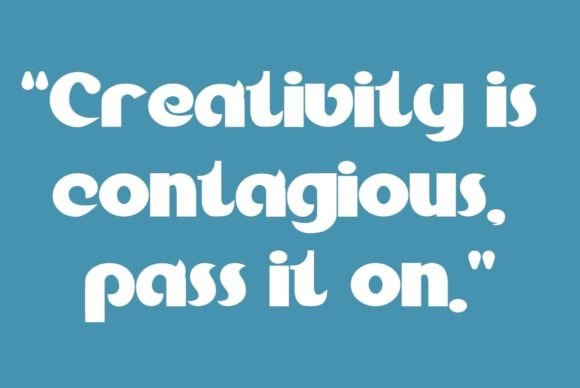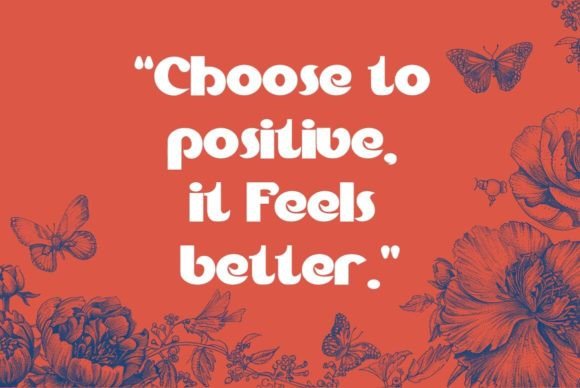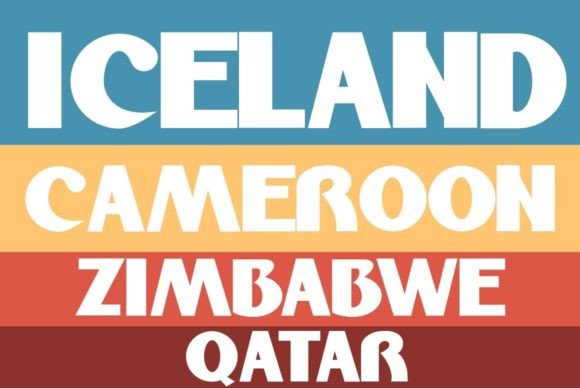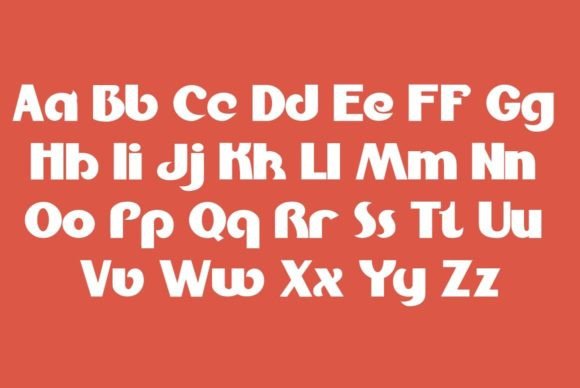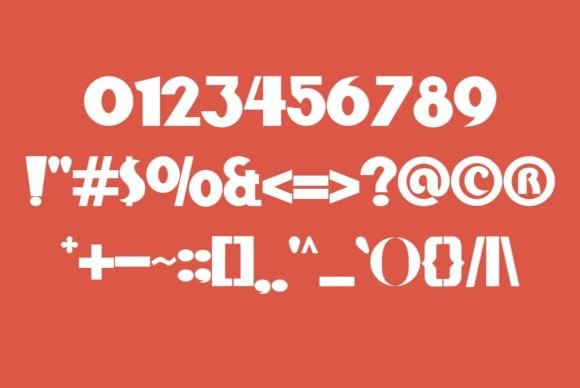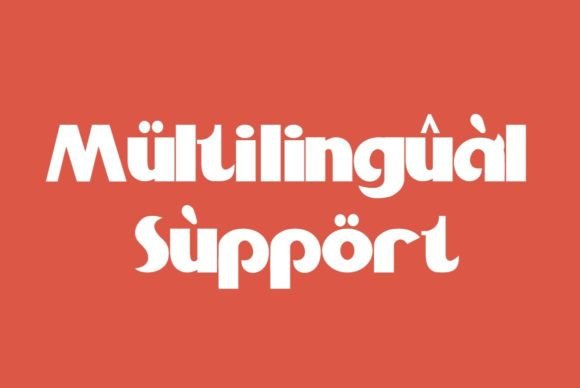
Introduction to Morinaga Font
As designers, we’ve all been there – staring at a blank canvas, trying to bring a creative project to life. The moment of inspiration hits, and suddenly, the perfect font appears in our minds. For us, that font is often the Morinaga Font, a sans-serif masterpiece that elevates any design to the next level. With its unique and elegant design, Morinaga Font is the perfect choice for branding and logo creation.
Whether you’re working on a high-quality logo for a client or crafting a personal design project, Morinaga Font is a valuable resource that can make all the difference. Its versatility and sophistication make it an ideal choice for designers looking to create distinctive and memorable designs. Plus, with its transparent background option, you can easily customize it to fit your project’s needs.
Key Features of Morinaga Font
- High-quality, modern sans-serif font design, perfect for a wide range of creative projects.
- Features a transparent background, allowing for seamless integration into various design elements and backgrounds.
- Includes a wide range of characters, including Latin, Cyrillic, and Greek alphabets, making it suitable for multilingual designs.
- Unique characteristics include a clean and minimalist aesthetic, making it an excellent choice for modern branding and marketing materials.
Honest Review: Morinaga Font
As a designer, I’m always on the lookout for high-quality design resources to elevate my creative projects. The Morinaga Font caught my attention, and I’m excited to share my honest review.
- ✨ High-quality typography: Morinaga Font boasts beautiful, hand-drawn characters that add a touch of elegance to any design.
- ✨ Versatility: This font is perfect for a wide range of creative projects, from logos to brochures, and even digital displays.
- ⚠️ Limited language support: While Morinaga Font covers a good range of languages, it may not be suitable for projects requiring extensive language support.
- ⚠️ No transparent background: This font doesn’t offer a transparent background option, which might be a drawback for designers working with complex backgrounds.
Overall, I’m impressed with the Morinaga Font’s high-quality typography and versatility. While it has some limitations, it remains a valuable design resource for creative projects. I’d definitely recommend it to fellow designers looking for a beautiful, free font.
Common Use Cases for Morinaga Font
The Morinaga Font is commonly used in:
- Design projects requiring a unique and creative touch.
- Branding and marketing materials, such as business cards and brochures.
- Graphic design projects, such as posters and flyers.